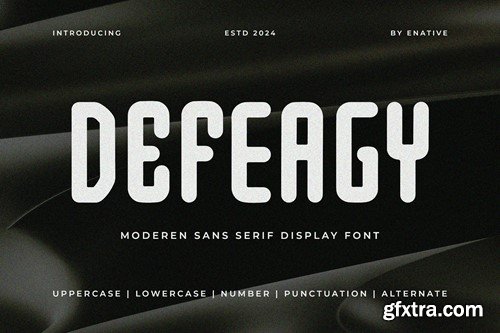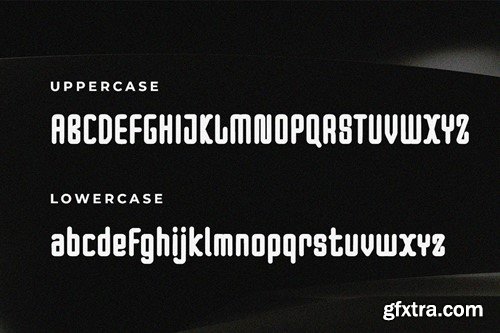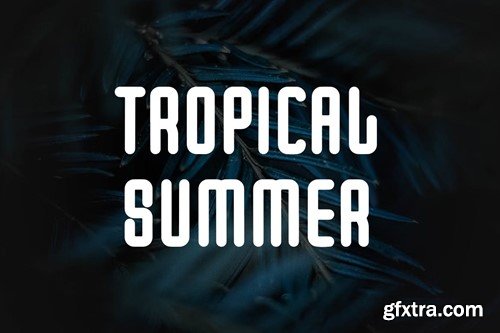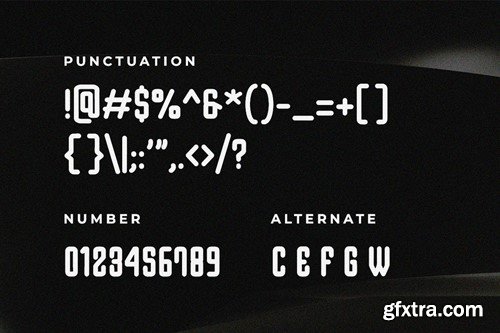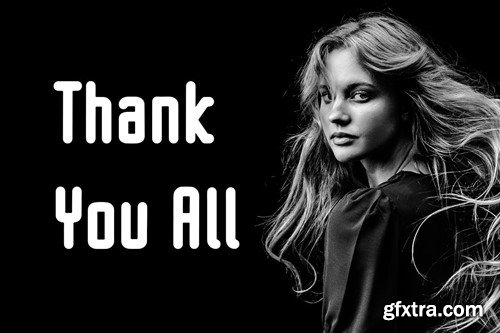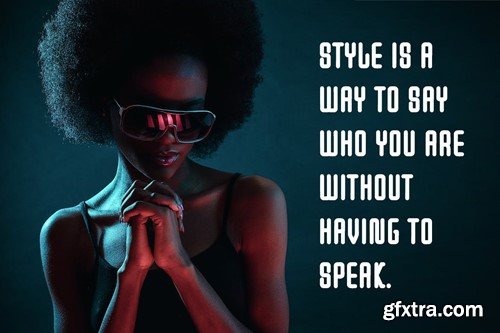
Defeagy Font
Defeagy is a unique display typeface perfect for titles, large text, branding, logotypes & graphic design purposes such as posters, pamphlets, and advertisements. This letter font can be a great choice for creating amazing logos, promotional content, and marketing presentations that can bring uniqueness and freshness at its best.
• Uppercase and Lowercase letters
• Numbering and Punctuations
• Alternate